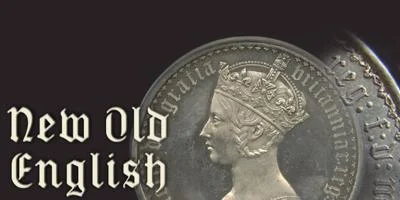
New Old English Font
New Old English Font is perfect for traditional projects including medieval-themed designs, historical documents, Gothic branding, ceremonial invitations, ancient manuscript recreations, fantasy book covers, traditional tattoo designs, and formal ecclesiastical materials. This ornate typeface brings timeless elegance and historic grandeur to any design project.
What makes New Old English Font exciting is its authentic revival of classic Gothic letterforms with contemporary refinement. The elaborate strokes and ornamental flourishes capture the majesty of medieval calligraphy while maintaining improved readability for modern applications. This font delivers the prestigious appearance of ancient manuscripts and royal documents, instantly conveying tradition, authority, and timeless sophistication.
The New Old English Font family typically includes ornate uppercase letters with decorative flourishes, complementary lowercase characters, numerals, and essential punctuation marks. The design often features intricate details and embellishments that honor traditional blackletter typography. Some versions include additional decorative elements, swash characters, and ornamental borders for enhanced period authenticity.
Whether you're designing for luxury brands, historical projects, or ceremonial applications, New Old English Font delivers the majestic presence that commands respect and attention. Its dramatic visual impact makes it perfect for prestigious headlines and formal announcements. The font's rich heritage ensures it conveys dignity and importance, making it ideal for any project requiring the distinguished aesthetic of traditional craftsmanship and classical elegance.